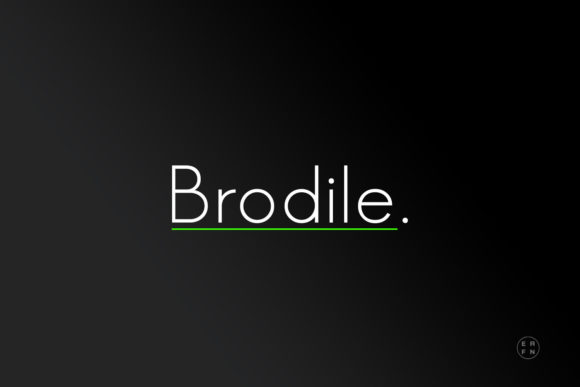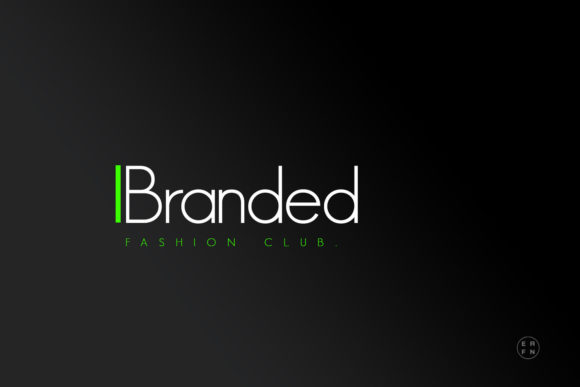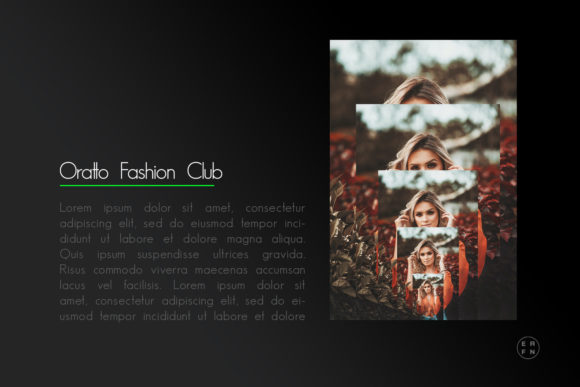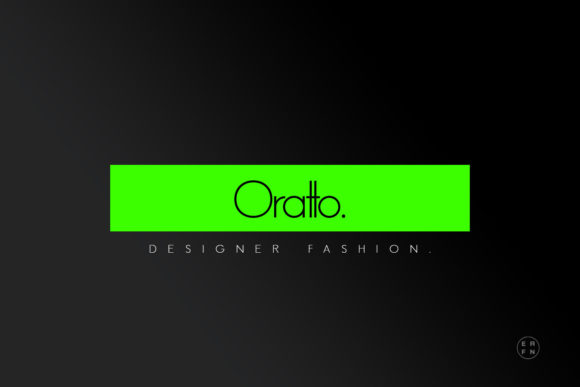
Unleash Your Creativity with Daine Font: The Ultimate Modern Display Typeface
In the world of typography, a good font can make all the difference in creating a lasting impression. For designers and crafters looking for a unique and modern display typeface, Daine Font is an excellent choice. This stunning font is perfect for headlines, big text, branding, logotypes, and display usage, making it the ideal tool for creating remarkable logos, promotional content, and marketing graphics.
What Makes Daine Font Stand Out?
Daine Font is a game-changer in the world of typography. Its unique and modern design makes it perfect for creating eye-catching headlines, logos, and promotional content. The font’s sleek lines, curves, and geometric shapes give it a fresh and contemporary look that’s sure to grab attention. Whether you’re a designer, craftsperson, or marketer, Daine Font is an excellent choice for adding a touch of sophistication and elegance to your projects.
Perfect for Creating Remarkable Logos and Branding
Logos and branding are essential elements of any business, and Daine Font is the perfect tool for creating unique and memorable ones. The font’s modern design and sleek lines make it ideal for creating logos that are both stylish and professional. With Daine Font, you can create monograms, logotypes, and identities that are sure to leave a lasting impression on your audience.
Key Features of Daine Font
- Unique and Modern Design: Daine Font boasts a unique and modern design that’s perfect for creating eye-catching headlines, logos, and promotional content.
- Perfect for Display Usage: The font is designed specifically for display usage, making it ideal for big text, headlines, and titles.
- Geometric Shapes: Daine Font features geometric shapes and sleek lines that give it a fresh and contemporary look.
- Multipurpose: The font is perfect for a wide range of projects, including logos, branding, promotional content, and marketing graphics.
- Use it for Headlines and Titles: The font is designed specifically for display usage, making it perfect for headlines, titles, and big text.
Why Choose Daine Font?
There are many fonts available, but Daine Font stands out from the rest. Here are a few reasons why:
- Unique Design: Daine Font has a unique and modern design that’s sure to grab attention.
- High-Quality: The font is of high quality, making it perfect for professional projects.
- Multipurpose: Daine Font is perfect for a wide range of projects, from logos and branding to promotional content and marketing graphics.
In conclusion, Daine Font is an excellent choice for designers and crafters looking for a unique and modern display typeface. Its sleek design, geometric shapes, and multipurpose nature make it perfect for creating remarkable logos, promotional content, and marketing graphics. Whether you’re a professional designer or a craftsperson, Daine Font is sure to bring uniqueness and freshness to your projects.